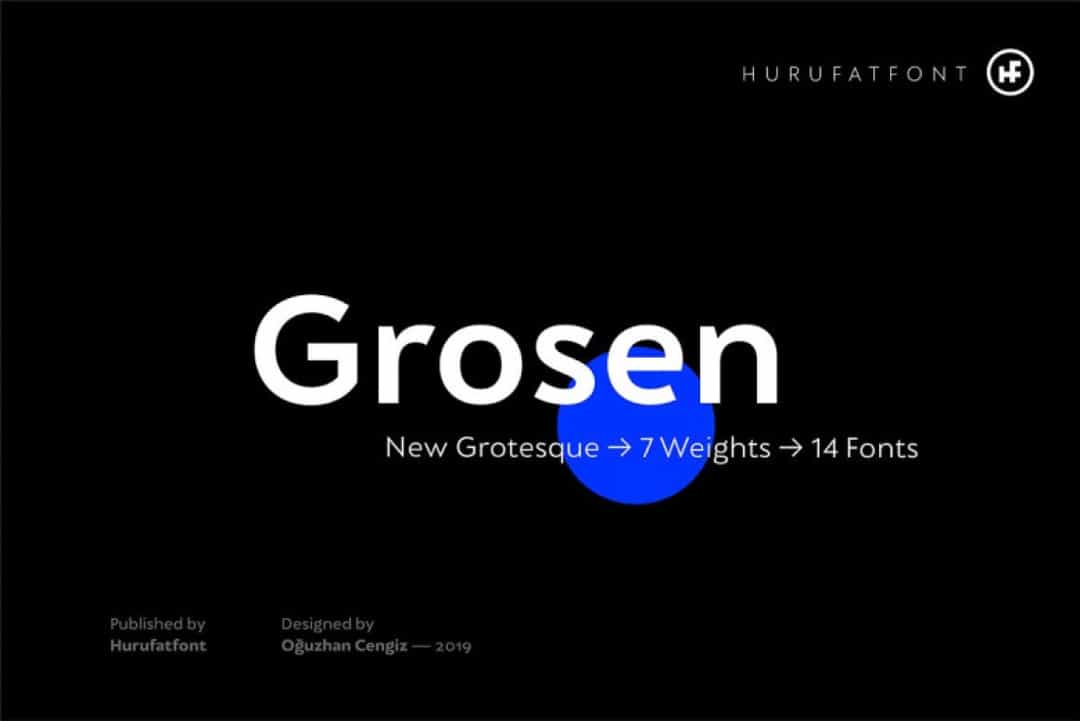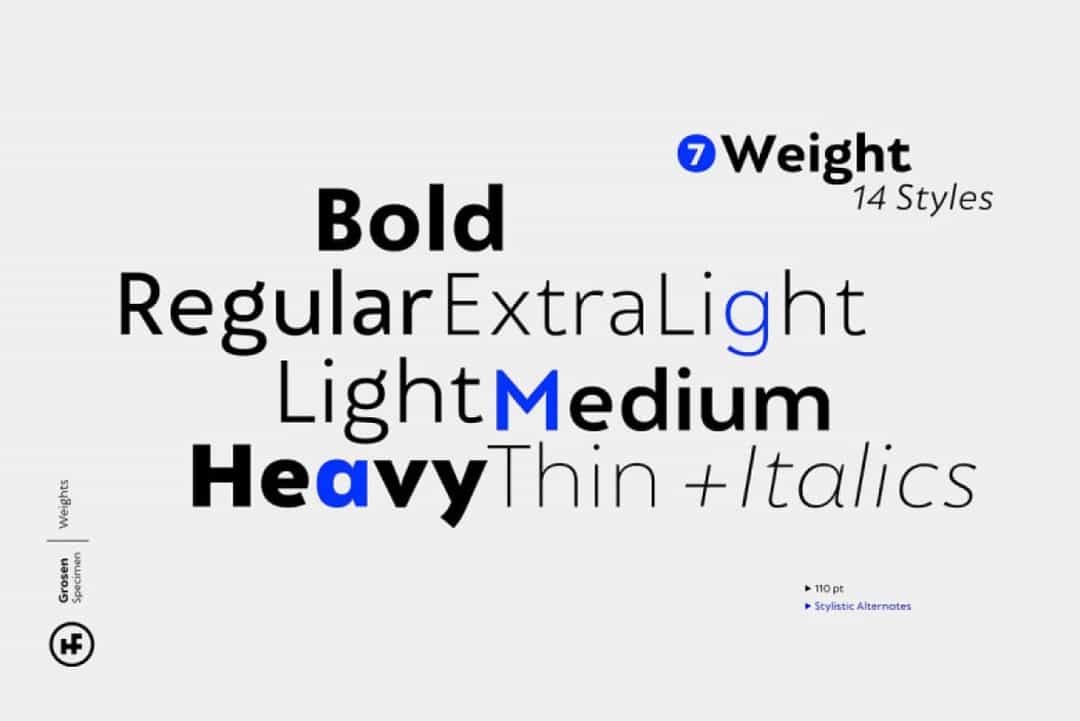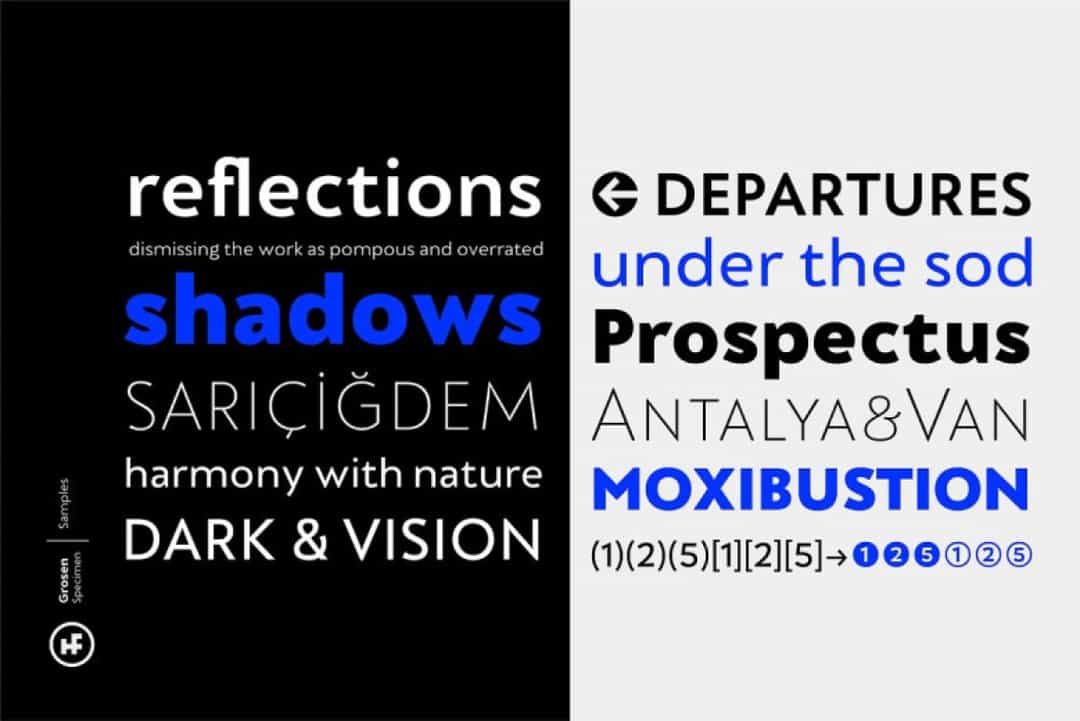
Grosen Sans Serif Font has an elegant grotesque layout that exudes humanity. Though based on geometry, its design stands out with an individual character; an expansion resembling serifs at both ends of letters that are round is its hallmark feature. Grosen Typeface Family includes fourteen styles each featuring seven weights and their respective italics.